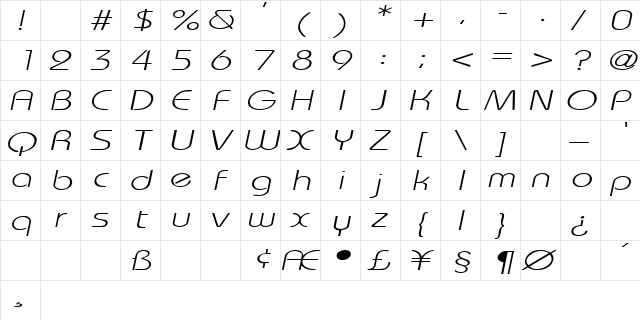
WashingtonMetroExtended Italic
Design Context for WashingtonMetroExtended Typeface
WashingtonMetroExtended is a composed and adaptable typeface that performs quietly and consistently across a wide range of design contexts. The dynamic lean of this cut emphasises speed and emphasis in any layout.